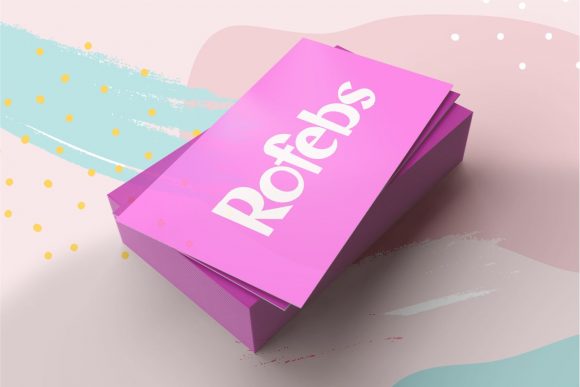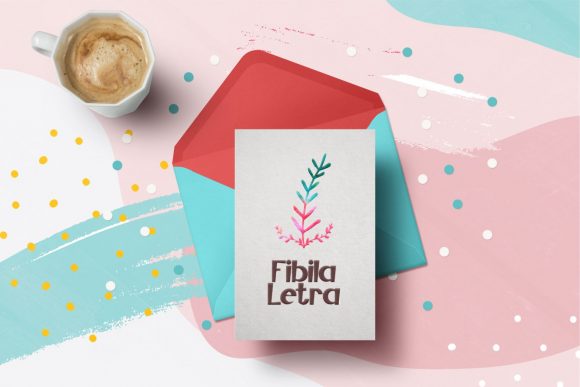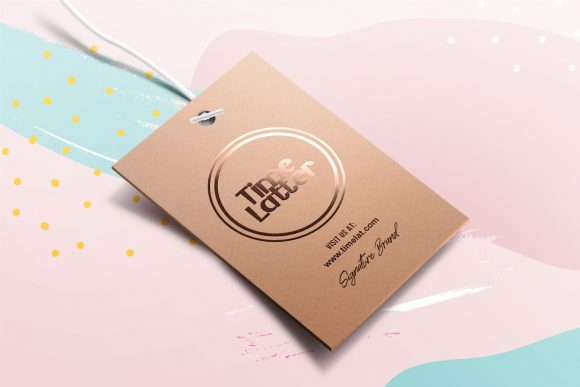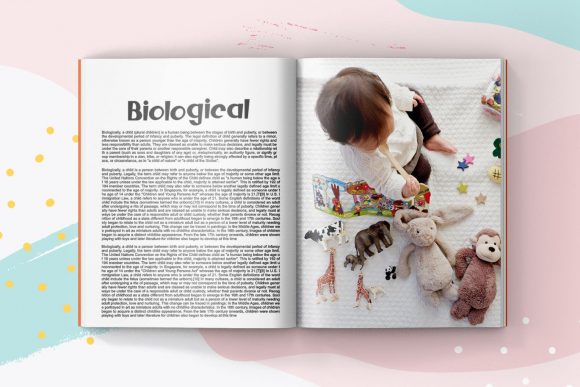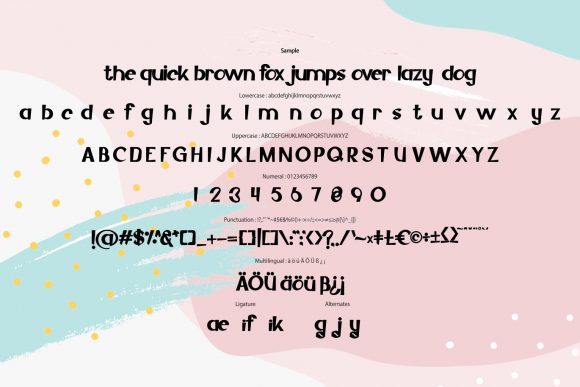
Adding a Splash of Fun to Your Designs
Who hasn’t experienced that moment of pure creative bliss when a new project starts to take shape? The blank page or canvas is staring back at you, begging to be filled with life and color. For designers, this feeling is all too familiar, and it’s what drives us to push the boundaries of our imagination. Today, we’re going to explore a font that embodies the very essence of this creative spark – the Alkids Font.
This charming display font is specifically designed to bring a sense of playfulness and authenticity to any design. Whether you’re working on a children’s activity or a school project, the Alkids Font is the perfect addition to make your designs come alive. By incorporating this chunky lettered font into your work, you’ll be able to add a touch of whimsy and personality that will captivate your audience.
Alkids Font Key Features
- Font Family: Alkids is a modern sans-serif font, designed specifically for digital use.
- Unique Characteristics: Alkids features a unique blend of clean lines, geometric shapes, and subtle rounded edges, making it an ideal choice for modern and minimalist designs.
- Character Count: Alkids includes a comprehensive set of characters, including Latin, Cyrillic, and Greek alphabets, as well as a range of punctuation and symbol characters.
Alkids Font Review
Overall, I found Alkids Font to be a visually appealing and modern font that can add a touch of playfulness to digital projects. ✨ The font’s rounded edges and irregular shapes give it a friendly, approachable feel that can work well for branding and advertising.
Here are some of the things I like about Alkids Font:
- Unique and modern aesthetic that sets it apart from more traditional fonts ✨
- Works well for digital projects, such as social media graphics, infographics, and presentations
- Supports a wide range of languages, making it a great choice for global brands
- Available in various weights and styles, allowing for flexibility in design
However, I did encounter some limitations with Alkids Font:
- May not be suitable for formal or professional projects, as it can come across as too playful or immature ⚠️
- Lack of ligature support can lead to awkward spacing and alignment issues
- Not ideal for large blocks of text, as the irregular shapes can make it difficult to read
Overall, I would recommend Alkids Font for projects that require a modern, playful aesthetic. While it has some limitations, it can be a great choice for digital projects and branding efforts.
Tips for Getting the Most Out of Alkids Font
Alkids Font is best used for creative and playful designs. Tips for getting the most out of it include:
– Using it for titles and headings to add a touch of whimsy.
– Pairing it with other playful fonts to create a unique visual identity.
– Experimenting with different font sizes and styles to create visual interest.
Alkids Font is commonly used for:
– Children’s books and educational materials.
– Playful marketing campaigns and advertisements.
– Creative projects and artwork.